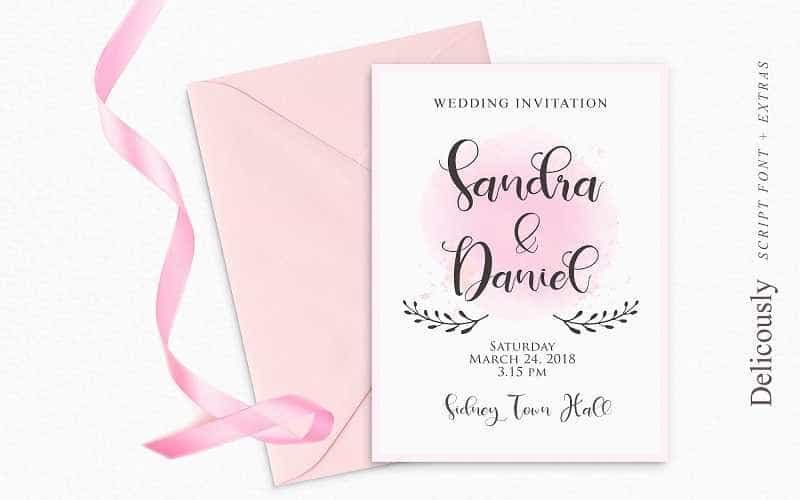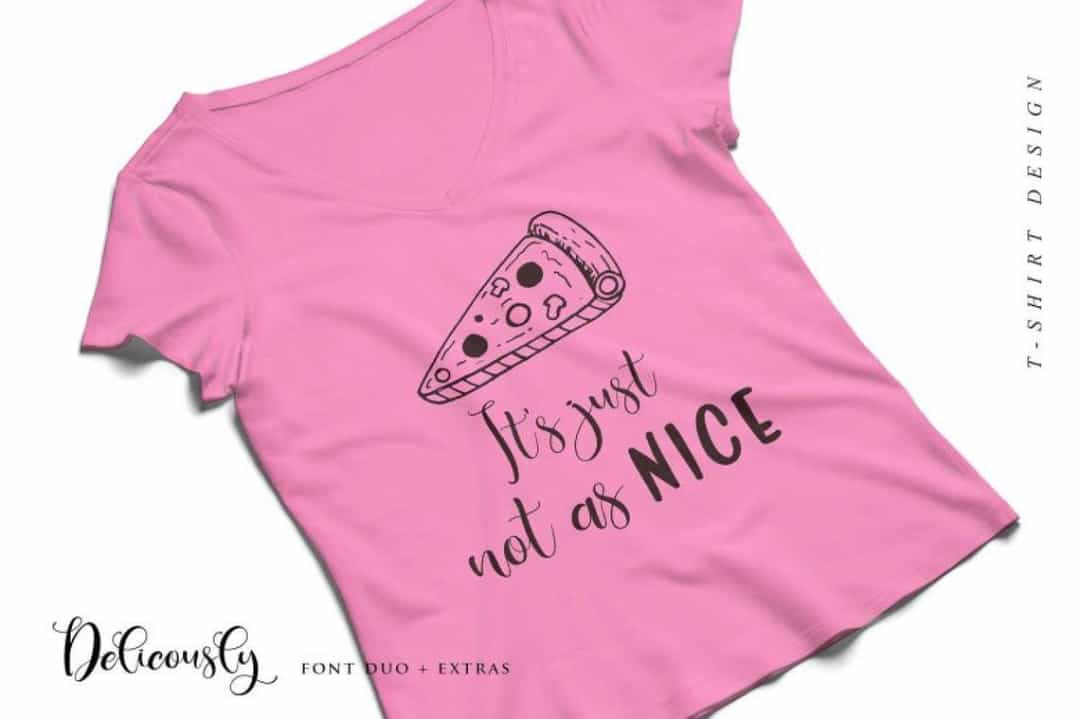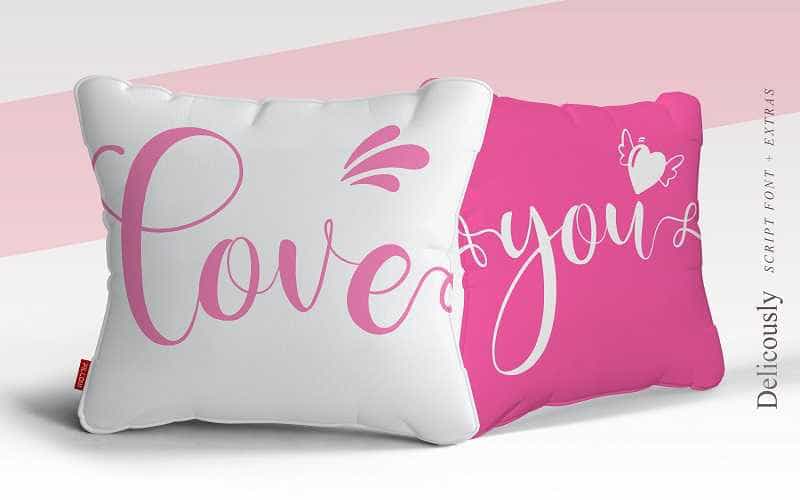
Surprise! The font used for the Deliciously font is now ready and available for download! This font would be perfect for logo and branding projects as well as product packaging, quotes and greeting card projects and all in general lovely projects at Din Studio. Deliciously Font Duo Set – brings you elegant and deviation looks with only capital letters, numbers, as well as a distinguished and numerous language punctuations to provide many delightful variants!